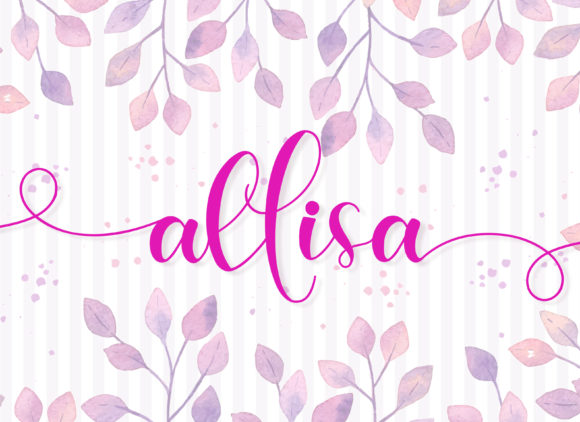
Journey into the enchanting realm of Allisa, a captivating handwritten font family that captures the essence of heartfelt expression. Experience the charm of its varying baseline, as each letter dances elegantly across your digital canvas with smooth lines and delicate curves.
Immerse yourself in the beauty of its meticulously crafted glyphs, each one a work of art that adds a touch of whimsical elegance to your designs. Explore the realm of stunning alternates, where you can effortlessly customize your projects, making each word a unique reflection of your creative vision.
Indulge in the authentic feel of Allisa, a font that whispers of intimate moments, heartfelt confessions, and cherished memories. Let your creativity soar as you craft exquisite wedding invitations, where the script-like elegance of Allisa transforms your words into heartfelt expressions of love and joy.
Envision the delicate beauty of Allisa gracing your stationary art, lending an air of sophistication to your personal correspondence. Create captivating social media posts that dance off the screen, enchanting your audience with their charm and originality. Design cute greeting cards that carry your warmest wishes, adorned with the graceful strokes of Allisa.
With Allisa, you hold the key to unlocking a world of heartfelt expression. Its PUA encoding grants you effortless access to a treasure trove of glyphs and swashes, empowering you to unleash your creativity and add a touch of magic to every project.
Fall under the spell of Allisa, a font that evokes the beauty of handwritten letters, capturing the essence of emotion and authenticity. Let your words take flight, carried by the enchanting allure of Allisa, as you craft designs that resonate with your audience on a deeply personal level.